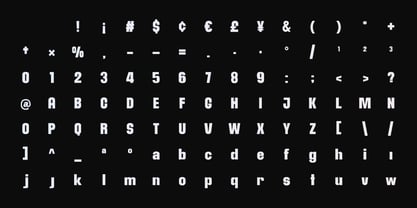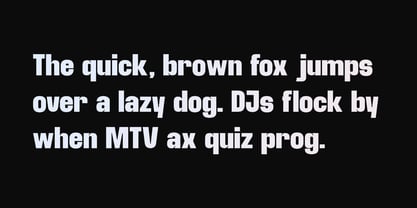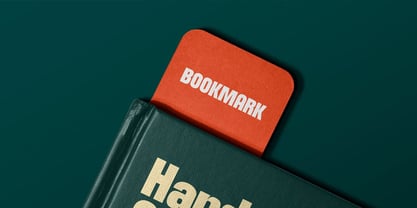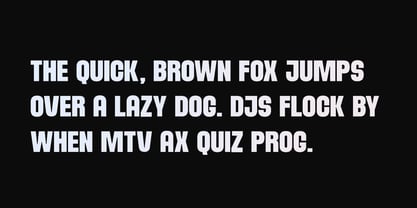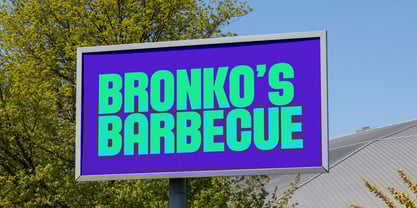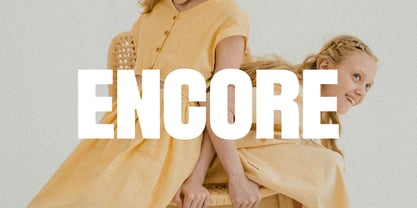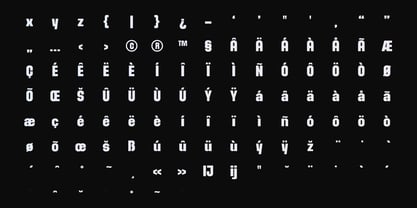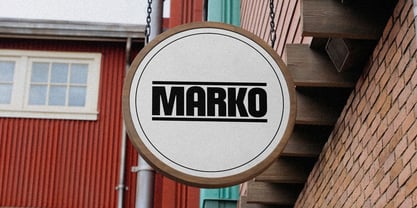
Encore Ultra
Encore Ultra is a bold and modern display typeface, featuring an extensive glyph set that includes uppercase and lowercase letters, numbers, punctuation, and essential diacritics. With support for a variety of languages, Encore Ultra is ideal for global branding.
Designed with fashion, branding, logos, headlines, and bold designs in mind, Encore Ultra delivers striking impact with its clean lines and strong forms. It's perfect for creating attention-grabbing Instagram and YouTube thumbnails, as well as adding a modern touch to high-end design projects.
With its comprehensive character set, multilingual support, and powerful presence, Encore Ultra is the ideal choice for creatives seeking a dynamic and eye-catching typeface.